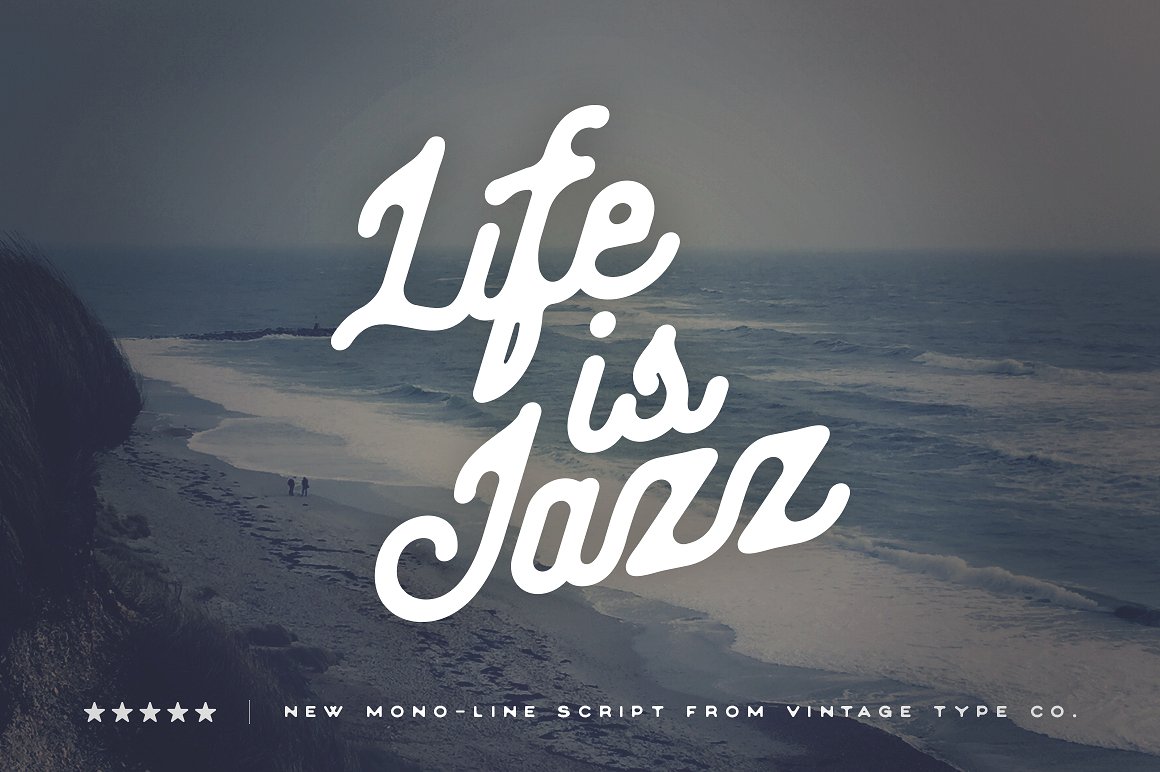
Life Is Jazz Script Font
Life is Jazz script is a vintage, hand-drawn inspired, mono-line font that is sure to be a great addition to your type arsenal. Use it for branding, packaging, posters, logos, print campaigns, web campaigns, cover design, motivational posters and printed goods, and so much more!